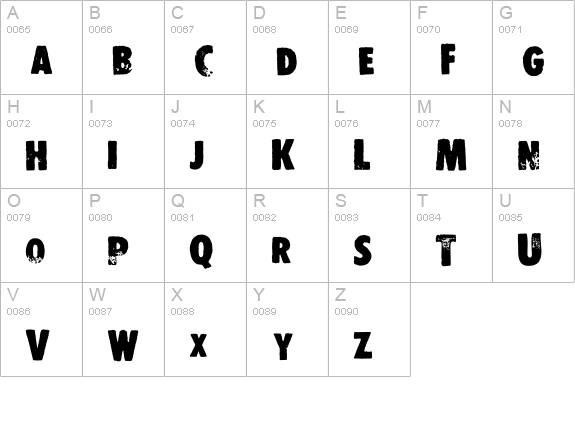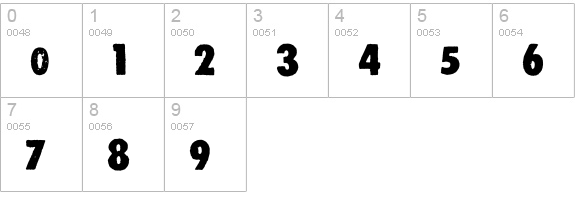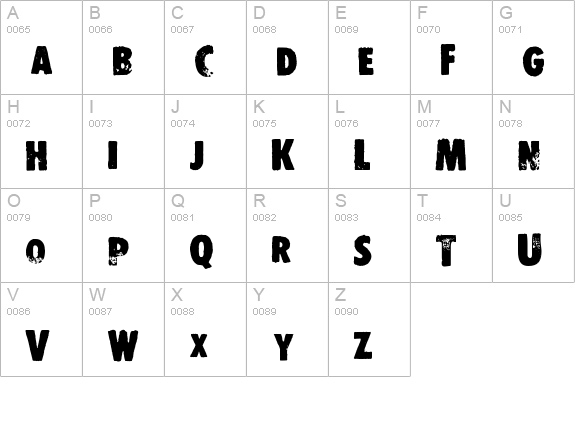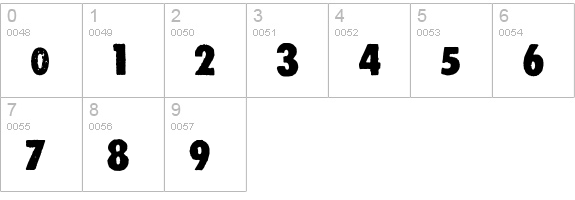
DS Stamper Font Details
DS Stamper font is a unique and stylish typeface that exudes a modern yet playful vibe. Its quirky design features bold and chunky letters with a stamped effect, adding a touch of creativity to any project. Perfect for posters, branding, and social media graphics, this font is sure to make your text stand out. Best of all, DS Stamper font is completely free to download at FontsMarket.com. Whether you're a professional designer or a hobbyist looking to add some personality to your work, this font is a must-have in your collection. Don't miss out on the opportunity to enhance your designs with this eye-catching and versatile typeface. Download DS Stamper font today and let your creativity shine!